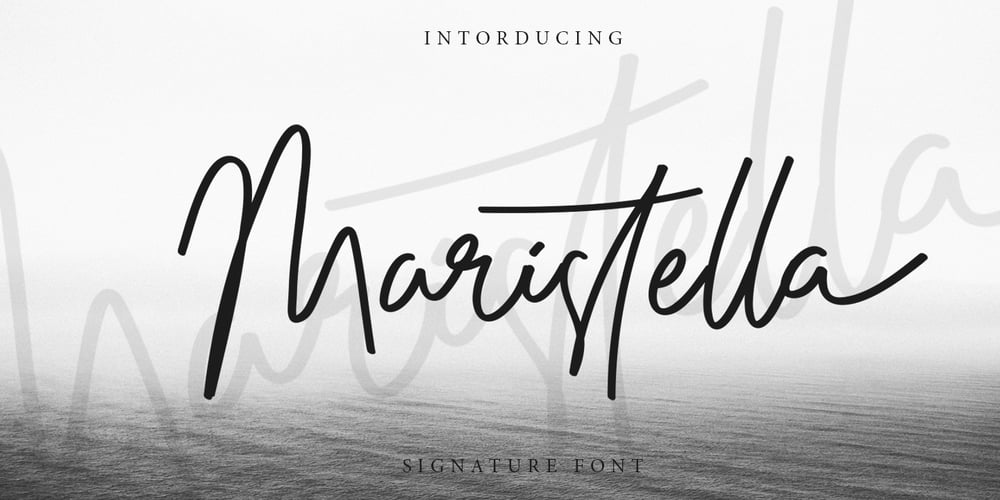
Maristella Font Family was designed by Asep Rendi and published by Arendxstudio. Maristella contains 1 styles and family package options. Maristella is a signature font that is unique, has an elegant style and is wrapped with an original hand stroke so it will be very suitable for your design project